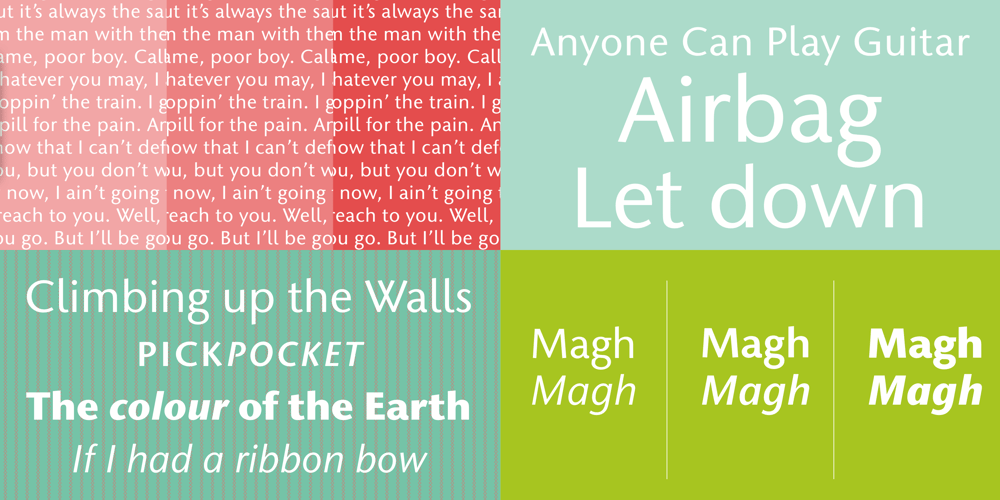
ITC Stone Humanist Font Family was designed by Sumner Stone and published by ITC. ITC Stone Humanist contains 6 styles and family package options. Type designers have been integrating the design of sans serifs with serifed forms since the 1920s. Early examples are Edward Johnston’s design for the London Underground, and Eric Gill’s Gill Sans. These were followed by Jan van Krimpen’s Romulus Sans, Frederic Goudy’s ITC Goudy Sans, Hermann Zapf’s Optima, Hans Meier’s Syntax and Adrian Frutiger’s Frutiger.Now, ITC Stone Humanist joins this tradition. It is a careful blend of traditional sans serif shapes and classical serifed letterforms.ITC Stone Humanist grew out an experiment with the medium weight of ITC Stone Sans, a design that already showed a relationship to these sans serif-serif hybrids. ITC Stone Sans has proportions based on those of ITC Stone Serif, and its thick-and-thin stroke contrast suggests the bloodline of humanistic sans serif typefaces. But other aspects of ITC Stone Sans are more closely aligned to the gothics and grotesques, a tradition that accounts for the largest portion of sans serif designs.Enter ITC Stone Humanist. During his experiments with the earlier design, Sumner Stone recalls, I was actually quite surprised at how seemingly subtle changes transformed the face,” moving the design firmly into the humanist tradition. “The form of the ‘g,’ ‘l,’ ‘M,’ ‘W,’ and more subtly the ‘a’ and ‘e’ are part of the restructuring of the family,” he explains. The top endings of vertical lower case strokes have been cropped on an angle, as have the ascender and descender stroke endings.ITC Stone Humanist is a full-fledged member of the ITC Stone family. It has been produced with the same complement of weights, and the x-heights, proportions, and underlying character shapes are completely compatible with the three original designs.The original ITC Stone Sans is a popular typeface, in part because of its notable versatility. ITC Stone Humanist shares this virtue, and can be used successfully at very small sizes, in long passages of text copy, and even as billboard-sized display type.”